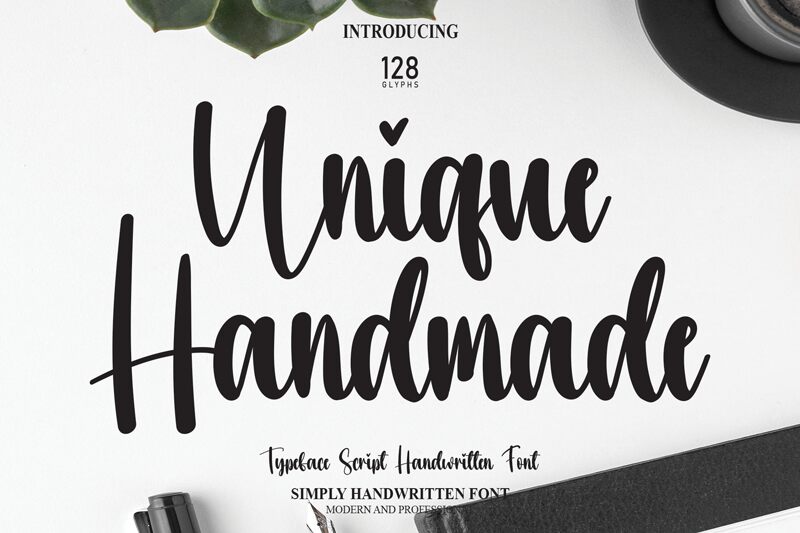
Unique Handmade
Unique Handmade, designed by Scratchones, is a captivating handwritten font with a semi-light weight and semi-condensed width. Its organic and artistic style brings a personal touch to any project.
With its whimsical charm, it is perfect for greeting cards, invitations, and stationery designs. The font's playful strokes add warmth to packaging designs or product labels for artisanal goods. Its legibility also makes it suitable for blog headers or social media graphics that aim to convey authenticity and creativity.
Unique Handmade effortlessly stands out in digital or print projects that require a distinctive and charming touch.